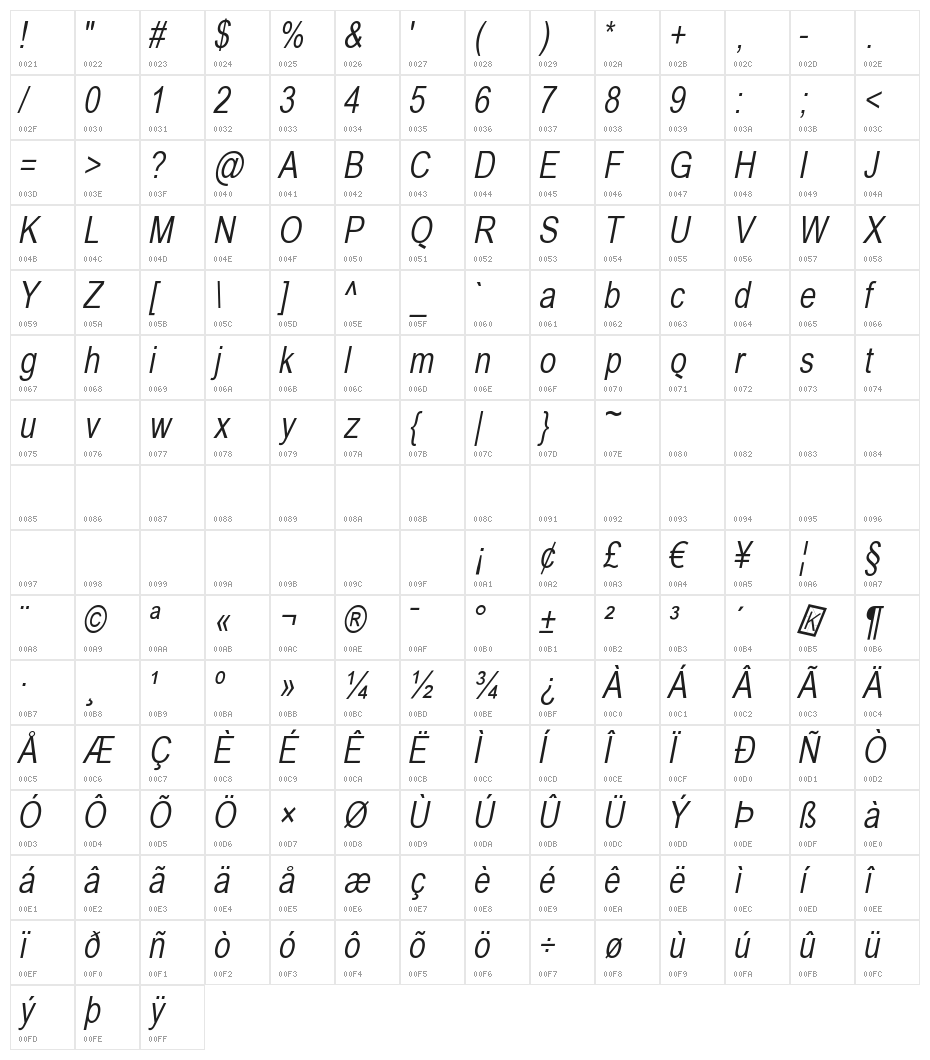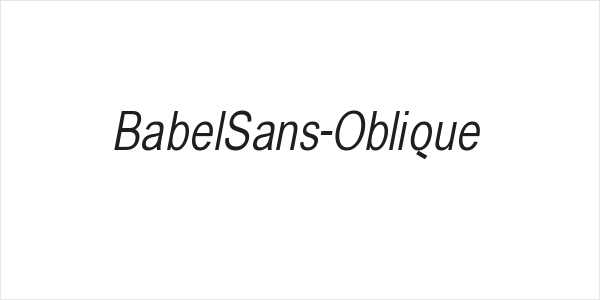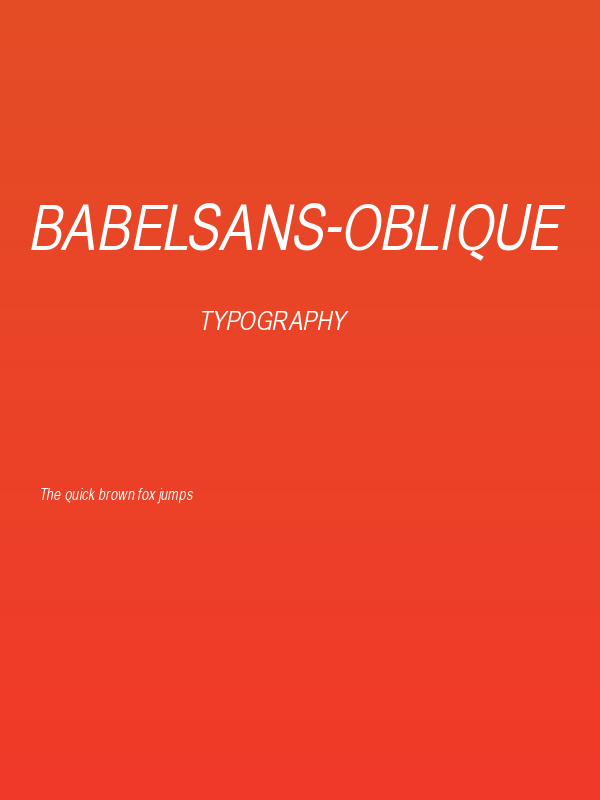
BabelSans-Oblique Font
BabelSans-Oblique Description
This font features a sleek, modern design with a distinct oblique style, giving it a dynamic and forward-leaning appearance. The characters are clean and sans-serif, contributing to a contemporary and professional look. The uniform stroke width ensures readability, while the slight slant adds a touch of elegance and movement. The font maintains a balanced proportion, making it suitable for various applications. Its simplicity and clarity make it ideal for digital and print media, where a modern and approachable aesthetic is desired.
| Use Case | Headlines, Body text, Logos |
| Proposed Projects | Ideal for branding, advertising, web design, and editorial layouts where a modern and professional look is needed. |